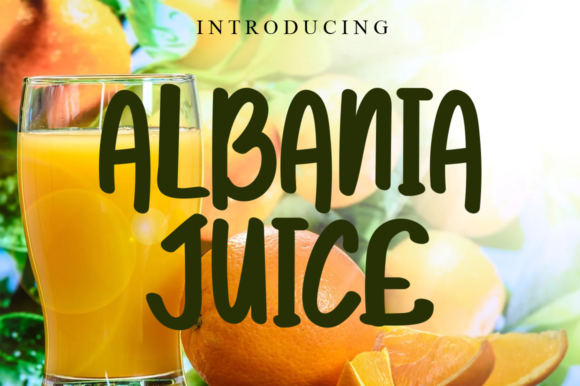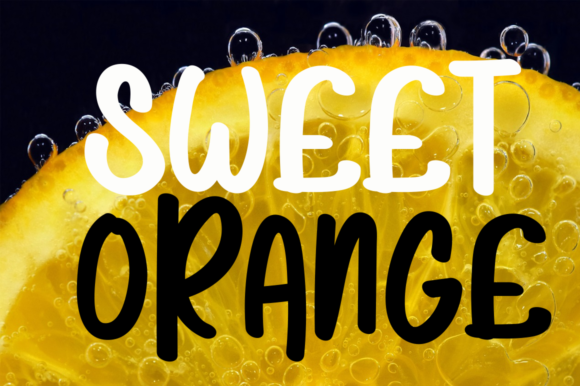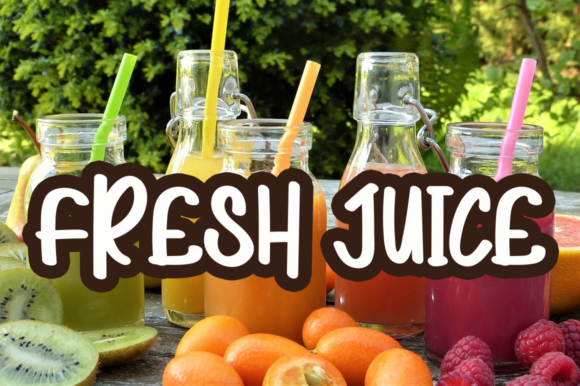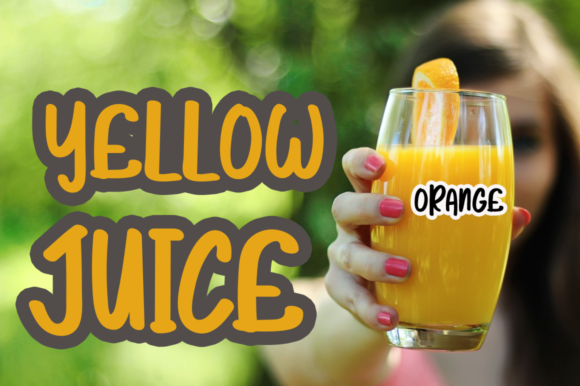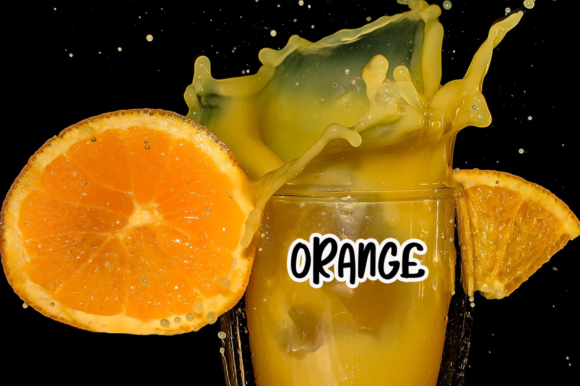
Albania Juice Font
About Albania Juice Font
Albania Juice is a relaxed and natural handwritten font. Simple but with a strong visual effect, this font will instantly make your creation more appealing than any others.